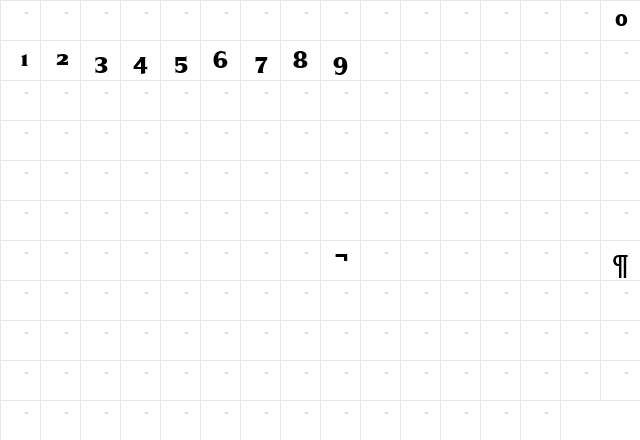
SilveradoExtraBoldOldStyleFigures Roman
Design Context for SilveradoExtraBoldOldStyleFigures Typeface
SilveradoExtraBoldOldStyleFigures brings classic typographic sensibility to the table — its serifs and measured letterforms reflect centuries of print heritage. The heavy weight commands attention and anchors typographic hierarchies.
Pro Tip: Use SilveradoExtraBoldOldStyleFigures for editorial body copy and considered headline work. Pair with a neutral sans for UI elements or captions to create a classic hierarchy.